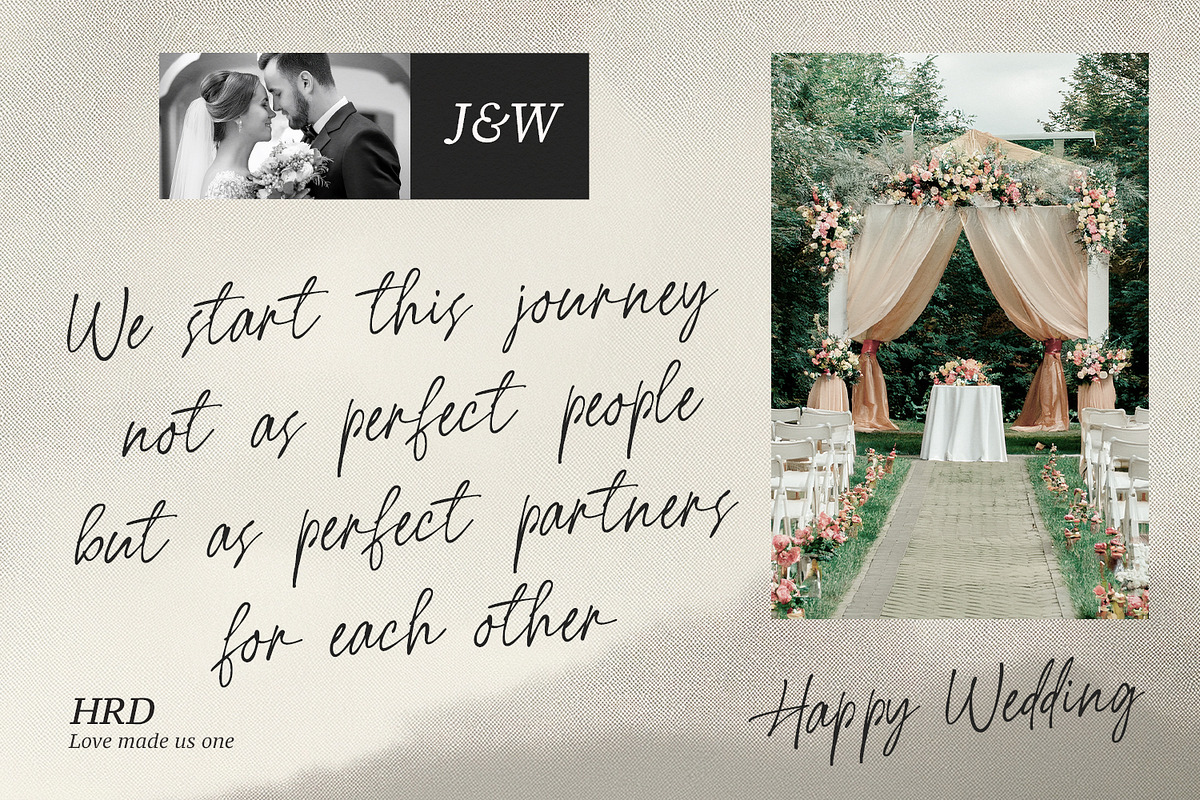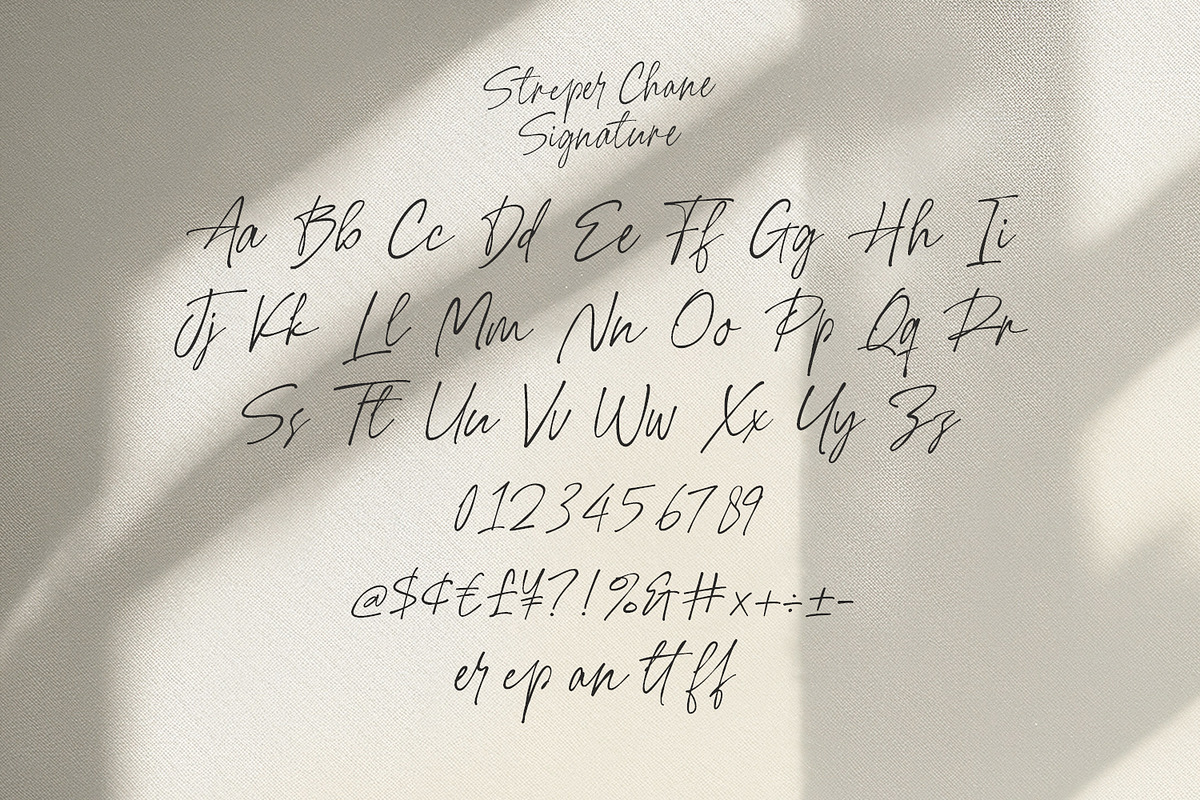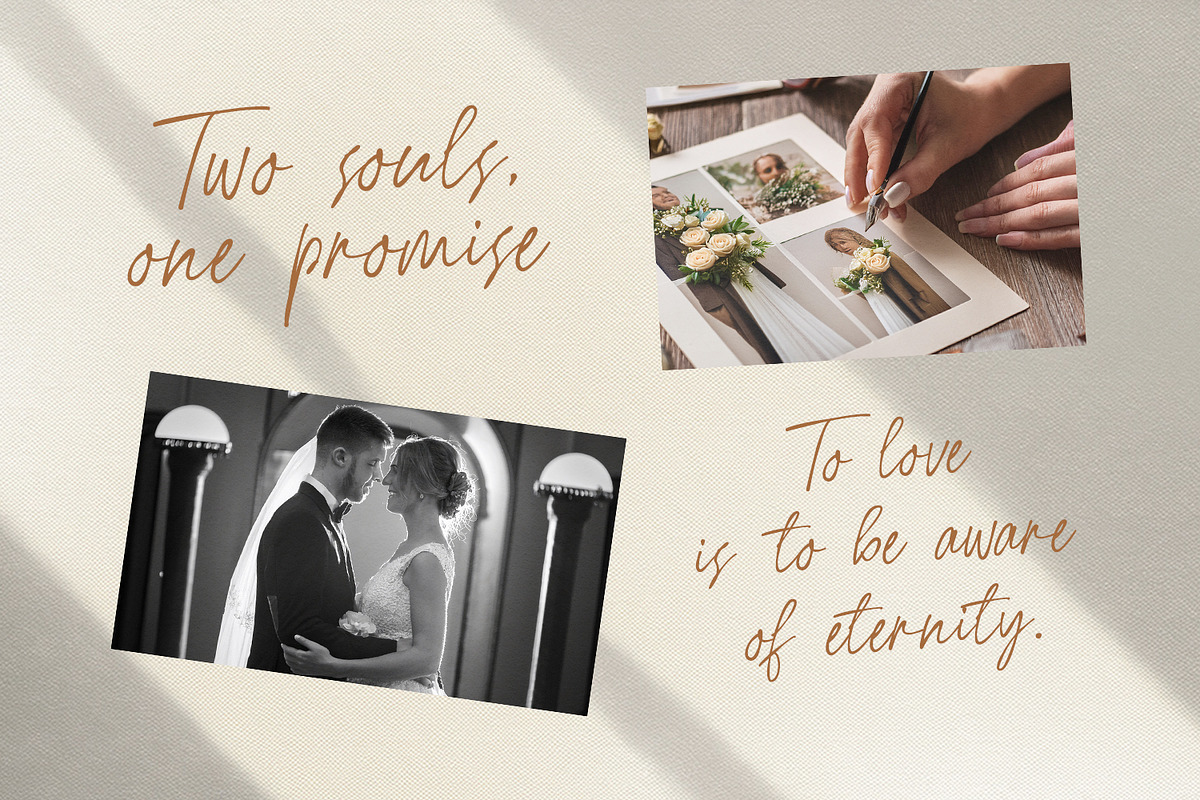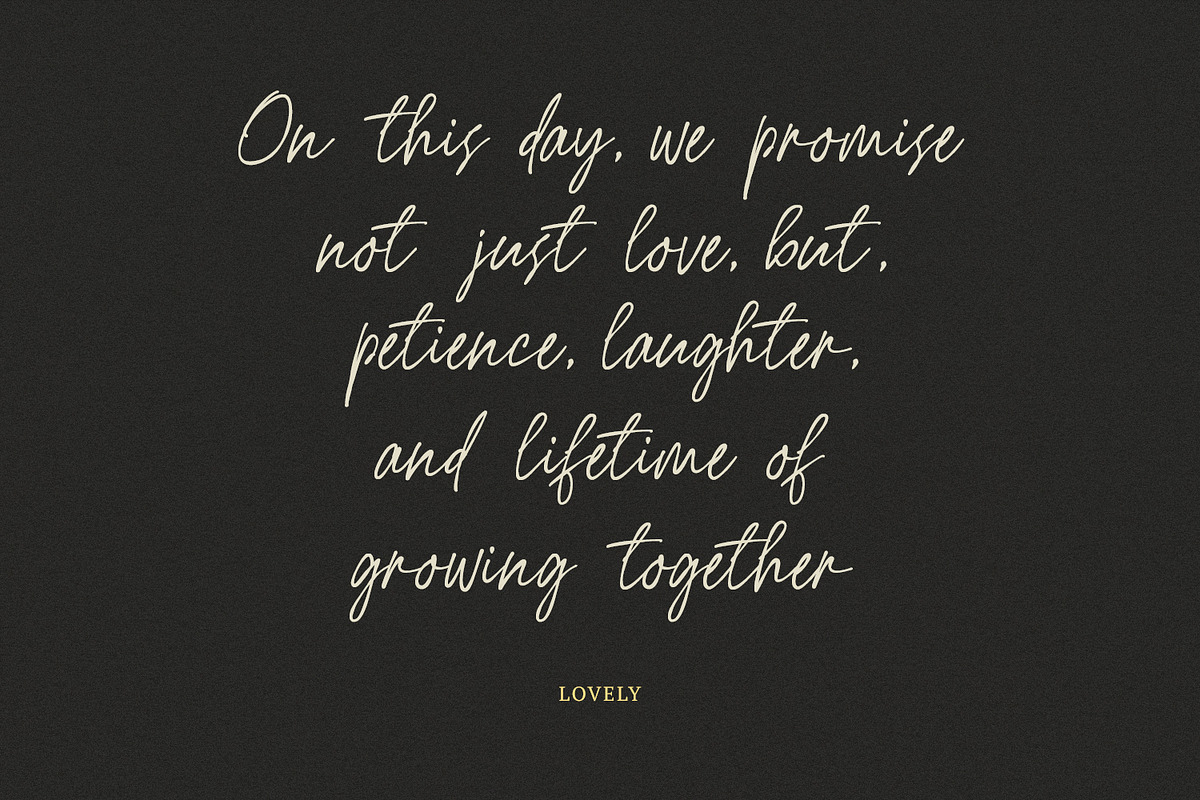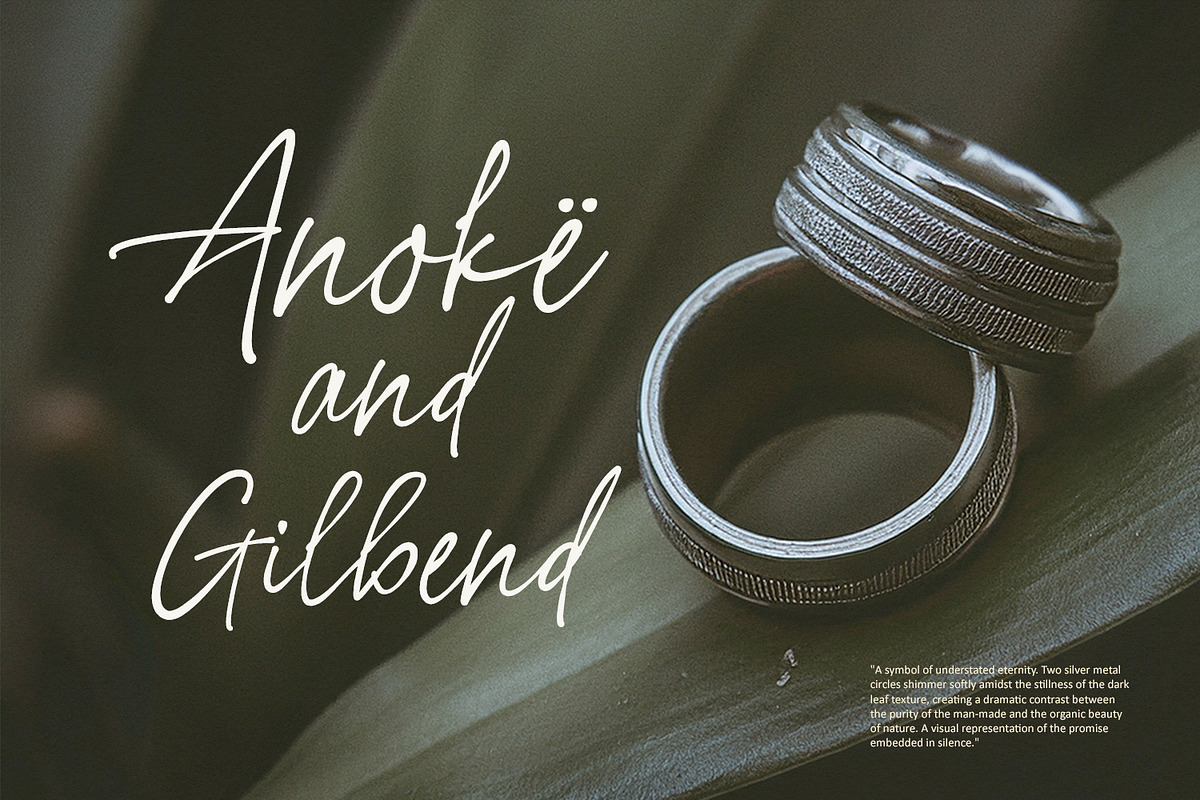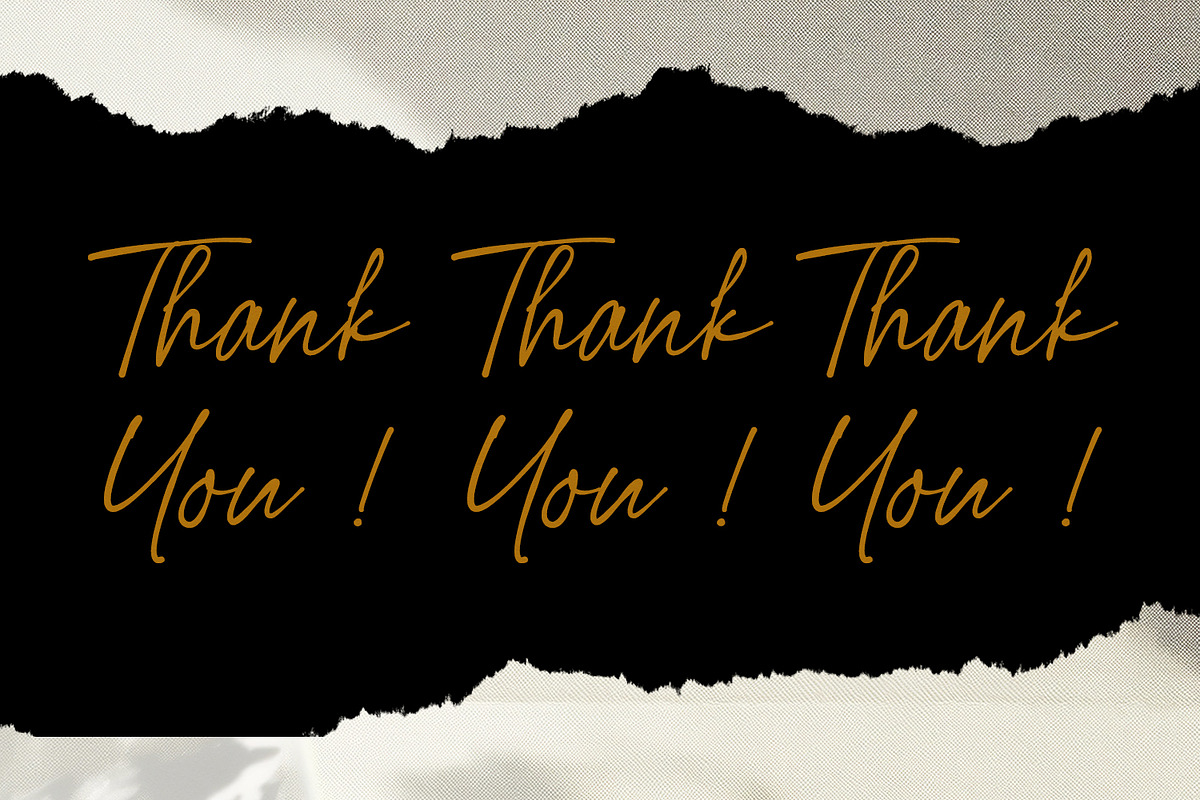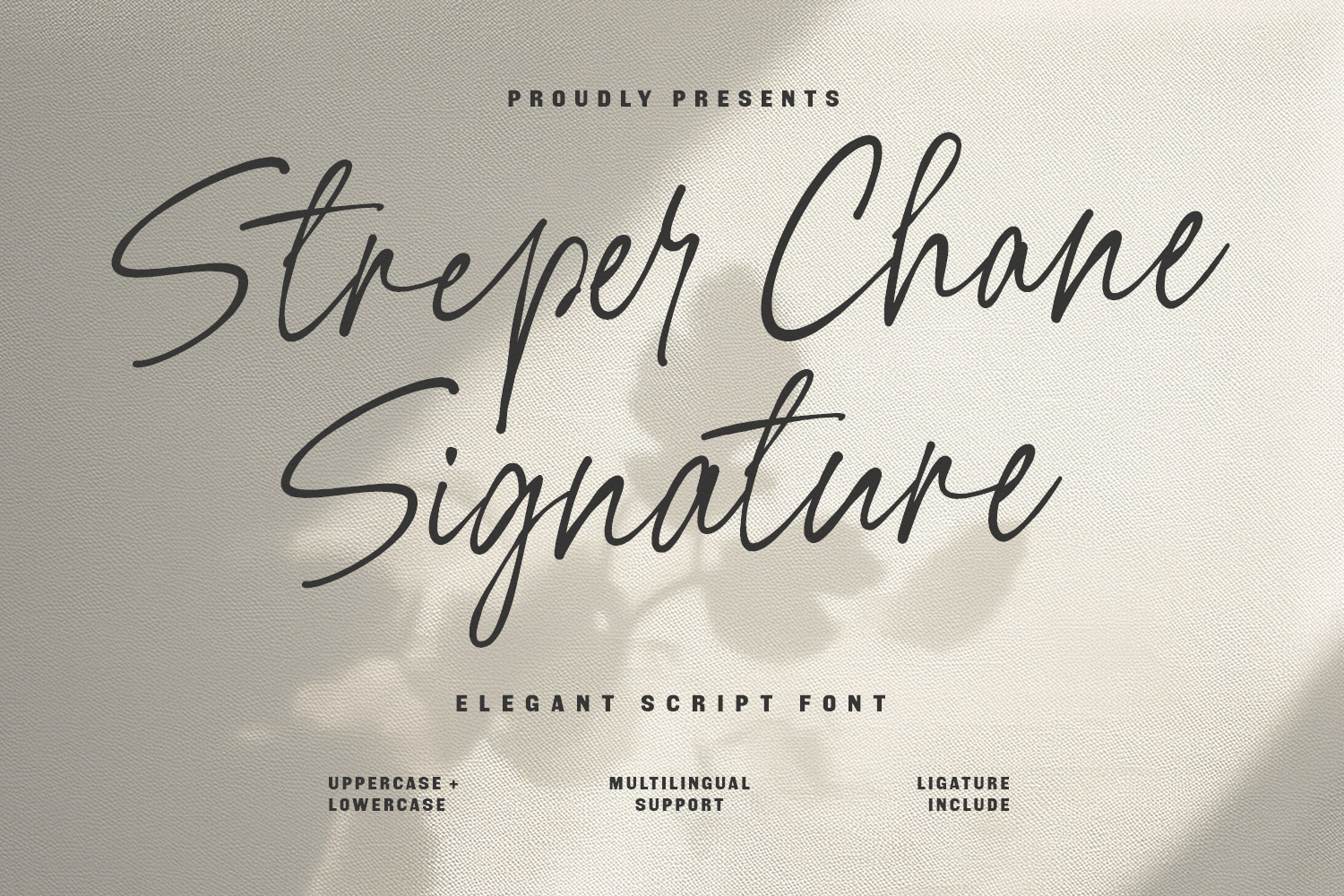
Streper Chane Signature Script Font
Streper Chane is an exquisite signature script font designed to bring a touch of personal elegance to your creative projects. Characterized by its fluid, natural strokes and sophisticated flair, this font perfectly mimics authentic handwriting. It features a full set of uppercase and lowercase letters, numbers, punctuation, and decorative ligatures. Ideal for luxury branding, wedding invitations, fashion photography overlays, sleek logos, and social media quotes, Streper Chane adds a timeless and professional aesthetic to any design.
- Full character set (Uppercase & Lowercase)
- Numbers, Punctuation, and Symbols
- Ligatures for a natural handwriting flow